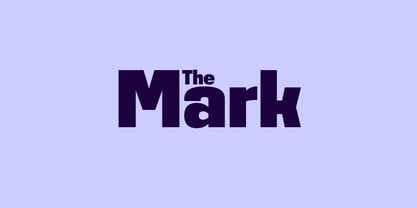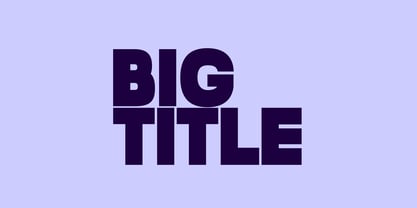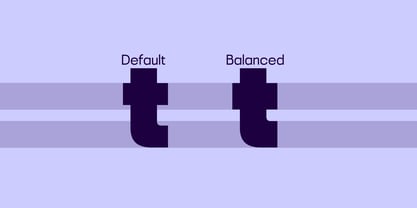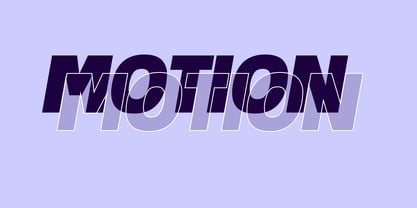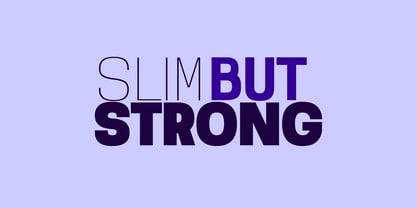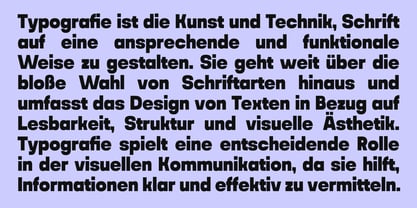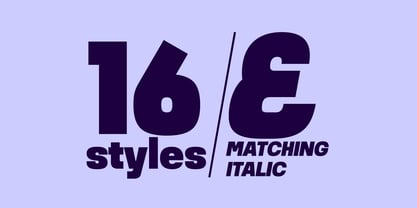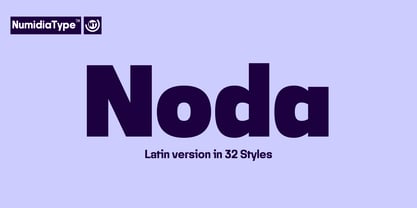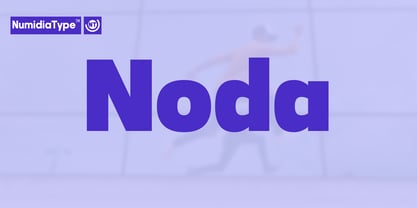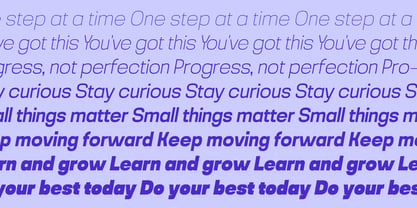
Noda
The Noda Font Family was designed by Yassine Abdi and published by NumidiaType. Noda contains 32 styles and family package options.
Noda™ font is a geometric font family and contains two families that are divided depending on the contrast features. The first family is designed with a difference between vertical and horizontal stems, it comes with clear joints, this feature is good for small text sizes in long paragraphs, and the second family is designed with a balanced contrast for an equilibrium stems. Both families have squared curves, and are produced to be used in web design, apps, or motion design.